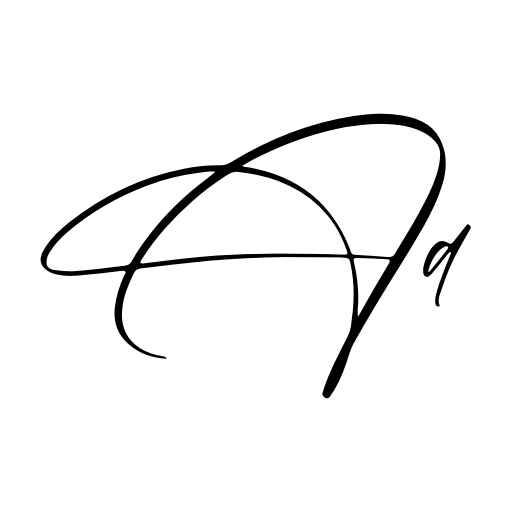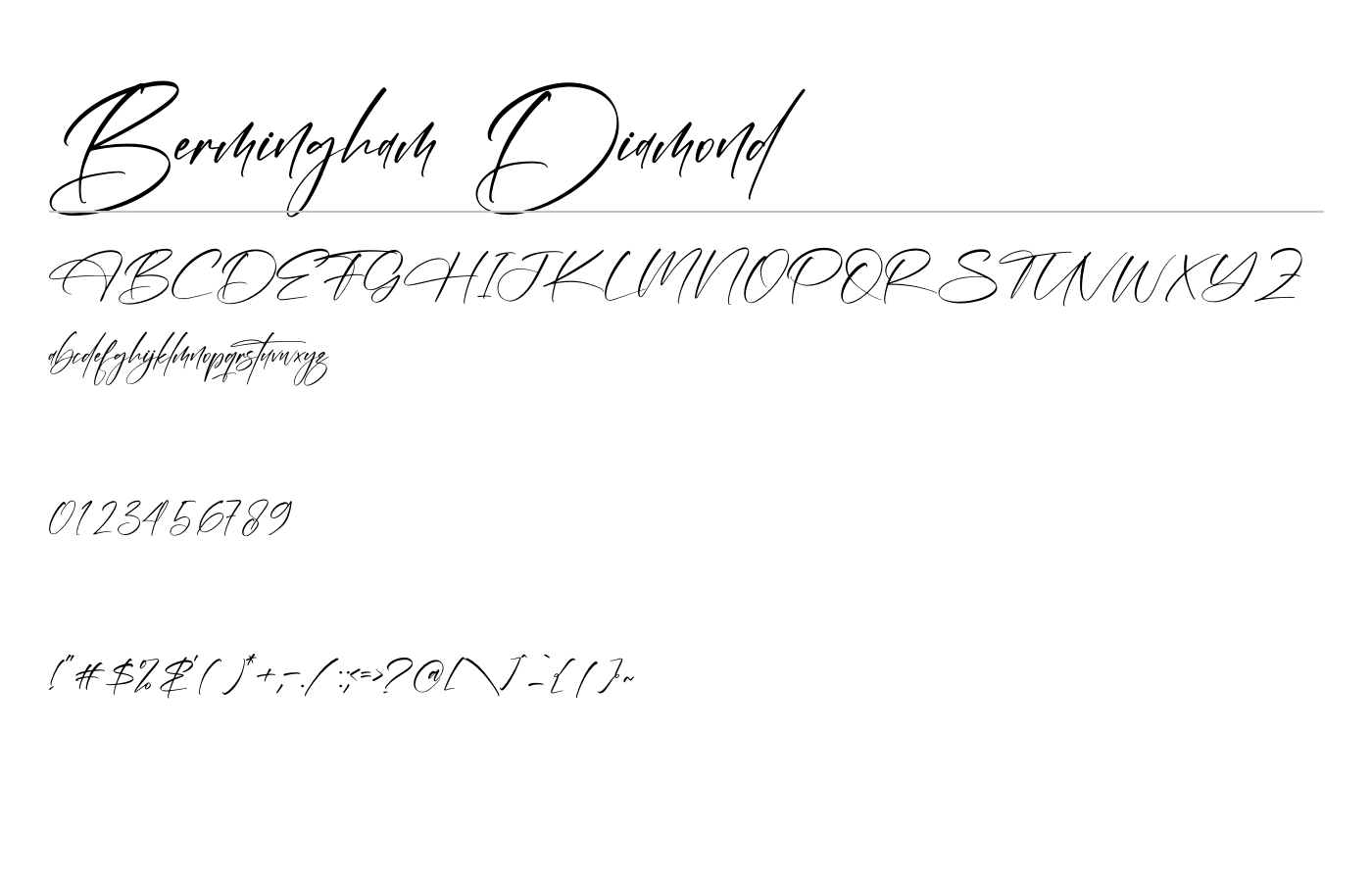
Bermingham Diamond is a delicate and elegant script font with a hand-drawn, calligraphic style featuring graceful, flowing strokes and a high contrast between thick and thin lines. Its slender, airy letterforms and stylish loops convey a sophisticated, romantic mood, making it ideal for wedding invitations, luxury branding, and editorial headlines where a refined, personal touch is desired. This font works beautifully in designs that need an elegant, artistic flair without overwhelming the composition.
Bermingham Diamond Font
About Bermingham Diamond Font